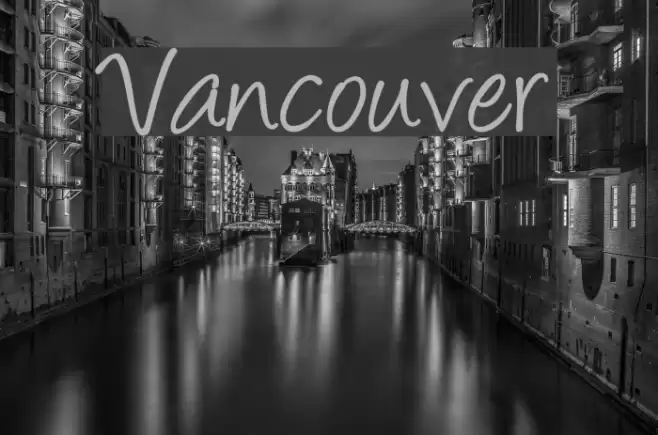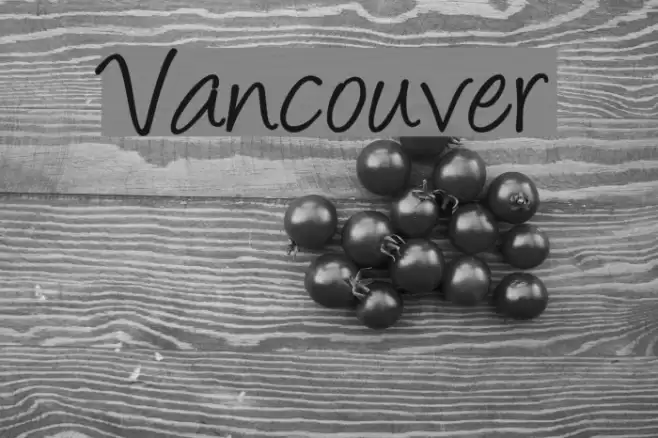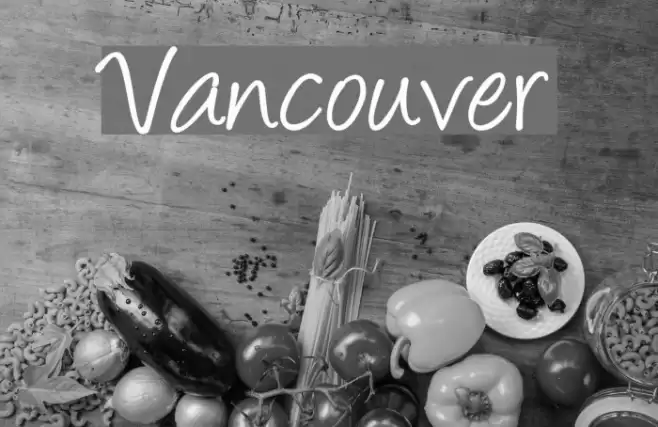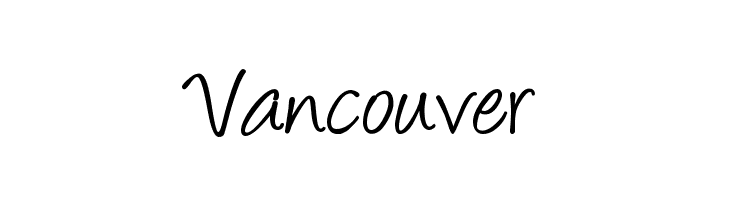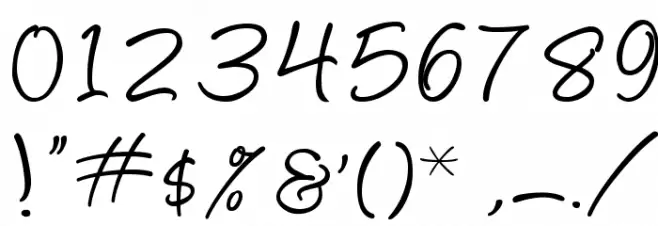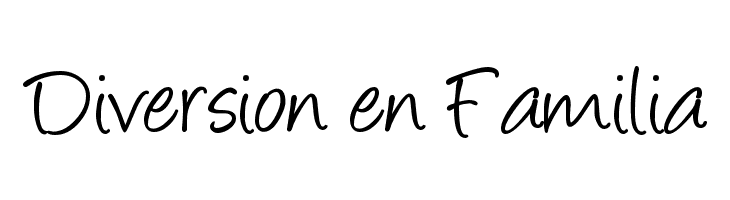
Vancouver
This font features a casual, handwritten style with a playful and approachable feel. The letters are slightly slanted, giving it an informal and dynamic appearance. The strokes are smooth and flowing, with a consistent medium weight that maintains readability. The characters have a natural, organic look, with rounded edges and a slight variation in stroke thickness that adds to its charm. This font includes a full set of uppercase and lowercase letters, numbers, and a variety of punctuation marks, making it versatile for various design needs.
A casual, handwritten font with smooth, flowing strokes and a playful feel.
- Proposed Projects: Ideal for greeting cards, invitations, personal branding, and creative projects that require a friendly and informal touch.
- Overall Style: Casual
- Use Case: Headlines, Invitations, Personal Branding